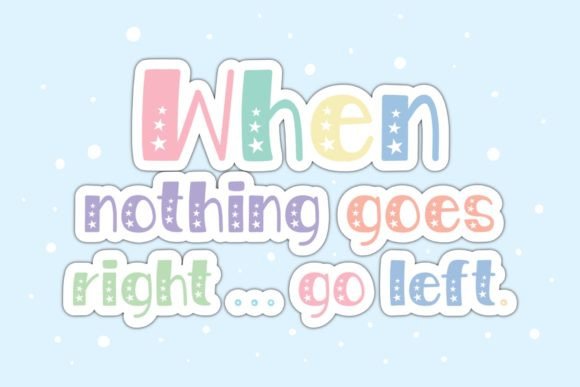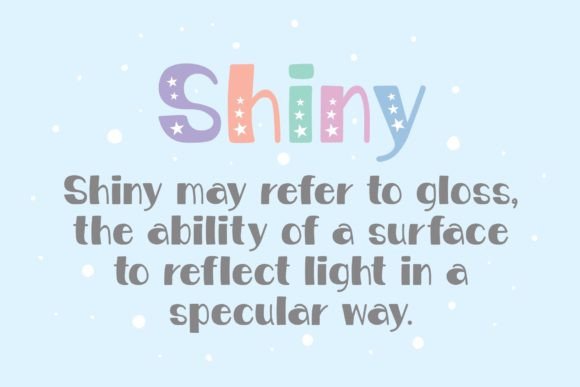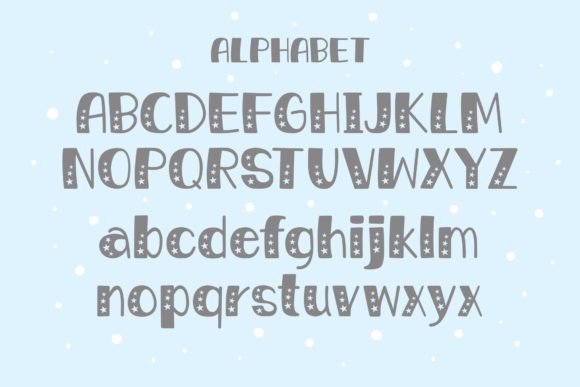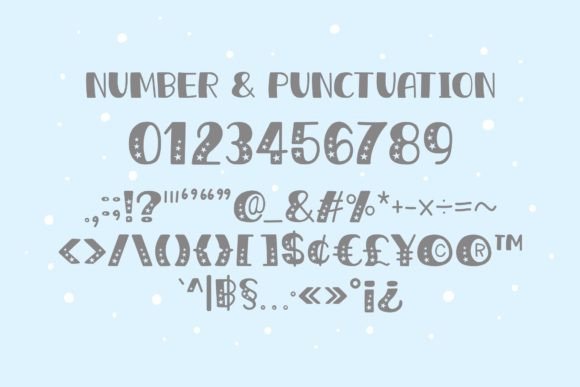
Introduction to Shiny Stars Font
Have you ever been working on a creative project, pouring your heart and soul into it, only to realize that something is missing – that special touch that sets it apart from the rest? For designers and crafty enthusiasts alike, finding the perfect font can be the key to elevating an entire design. And that’s exactly where the Shiny Stars Font comes in – a delightful, high-quality decorative font that’s sure to make your project shine.
With its beautiful, intricate design and transparent background, the Shiny Stars Font is a valuable design resource that can add a touch of magic to any creation. Whether you’re working on invitations, greeting cards, DIY gifts, or fabric prints, this font has the potential to take your project to the next level.
Key Features of Shiny Stars Font
- High-quality vector design, perfect for a creative project or design resource.
- Transparent background for seamless integration into any design or layout.
- Includes 6 unique star designs with scalable sizes and resolutions up to 300 DPI.
- Ideal for use in graphic design, web design, and digital art projects.
- Easy to customize and edit using popular design software like Adobe Illustrator.
- Perfect for creating eye-catching visuals, such as social media graphics, posters, and more.
Honest Review: Shiny Stars Font
I recently had the chance to work with the Shiny Stars Font for a creative project, and I must say it’s been a game-changer. This high-quality design resource has made a significant impact on my work.
- ✨ What works well: The font is incredibly versatile and easy to use, making it perfect for a variety of design projects. The transparent background is also a major plus, as it allows for seamless integration into any design.
However, I did encounter a few limitations with the Shiny Stars Font. ⚠️ One of the main issues I had was with the font’s consistency across different font sizes. At smaller sizes, the font can become somewhat distorted, which can be a bit frustrating.
Overall, I’m thoroughly impressed with the Shiny Stars Font. It’s a fantastic design resource that’s perfect for anyone working on a creative project. With its high-quality design and transparent background, it’s definitely worth checking out.
Getting the Most Out of Shiny Stars Font
Some tips for getting the most out of Shiny Stars Font include using it in combination with other design elements, such as graphics and images, to create a visually appealing design. You can also experiment with different font sizes and colors to create a unique and creative look.
Some common use cases for Shiny Stars Font include designing invitations, creating social media graphics, and developing branding materials. With its high-quality design and transparent background feature, Shiny Stars Font is a great resource for any creative project.